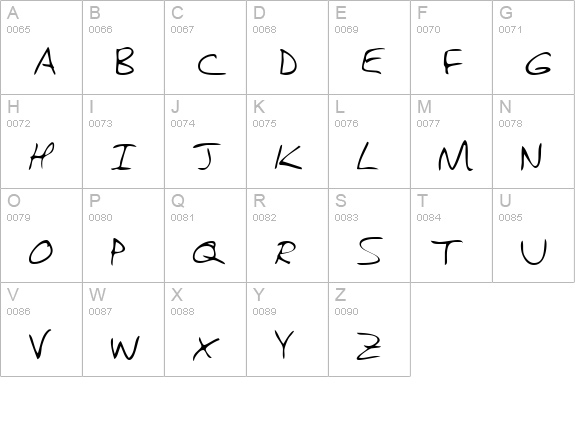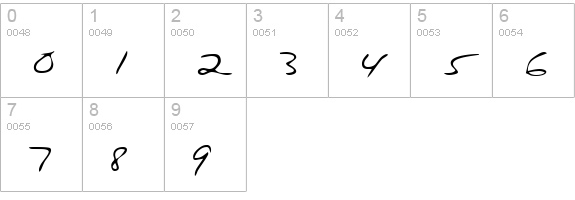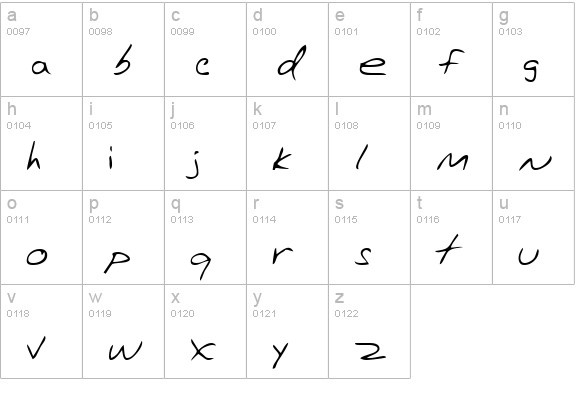
HanfordsHand Regular Font Details
HanfordsHand Regular is the standard, neutral variant in the HanfordsHand typeface family \xE2\x80\x94 well suited to general body text, paragraphs, and standard typographic work.
HanfordsHand Regular font is a unique and stylish typeface that adds a touch of elegance to any design project. With its smooth curves and graceful letterforms, this font is perfect for creating eye-catching logos, headlines, and display text. The versatility of HanfordsHand Regular font allows it to be used in a variety of applications, from print materials to digital media. Whether you're designing a poster, website, or packaging, this font will bring a sense of sophistication and refinement to your work. One of the standout features of HanfordsHand Regular font is its free availability. You can easily download this font at FontsMarket.com, making it accessible to designers and creatives around the world. This means that you can incorporate the beauty of HanfordsHand Regular font into your designs without any hassle or cost. The clean and legible nature of this font ensures that your message will be conveyed clearly to your audience. The carefully crafted letterforms make reading effortless, while the subtle details add a touch of personality and charm. Whether you're a professional designer or a hobbyist, HanfordsHand Regular font is an excellent addition to your font library. Its timeless appeal and free availability make it a must-have for any creative project. So why wait? Download HanfordsHand Regular font today and elevate your designs to new heights of sophistication and visual appeal.